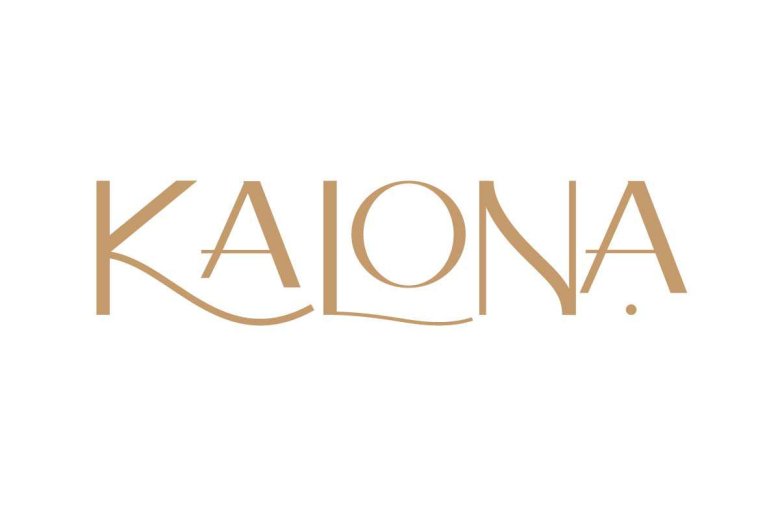
Kalona Font
Kalona Sans Serif Font will be great for any projects (require extended license) including : branding, logo, stationery, business card, signage, flyer, brochure etc. Kalona Font comes with many alternative characters and ligatures to make it flowless and stunning. Kalona will be great for many business and industries including cosmetic, beauty, education, wedding, finance, fashion, houseware etc.